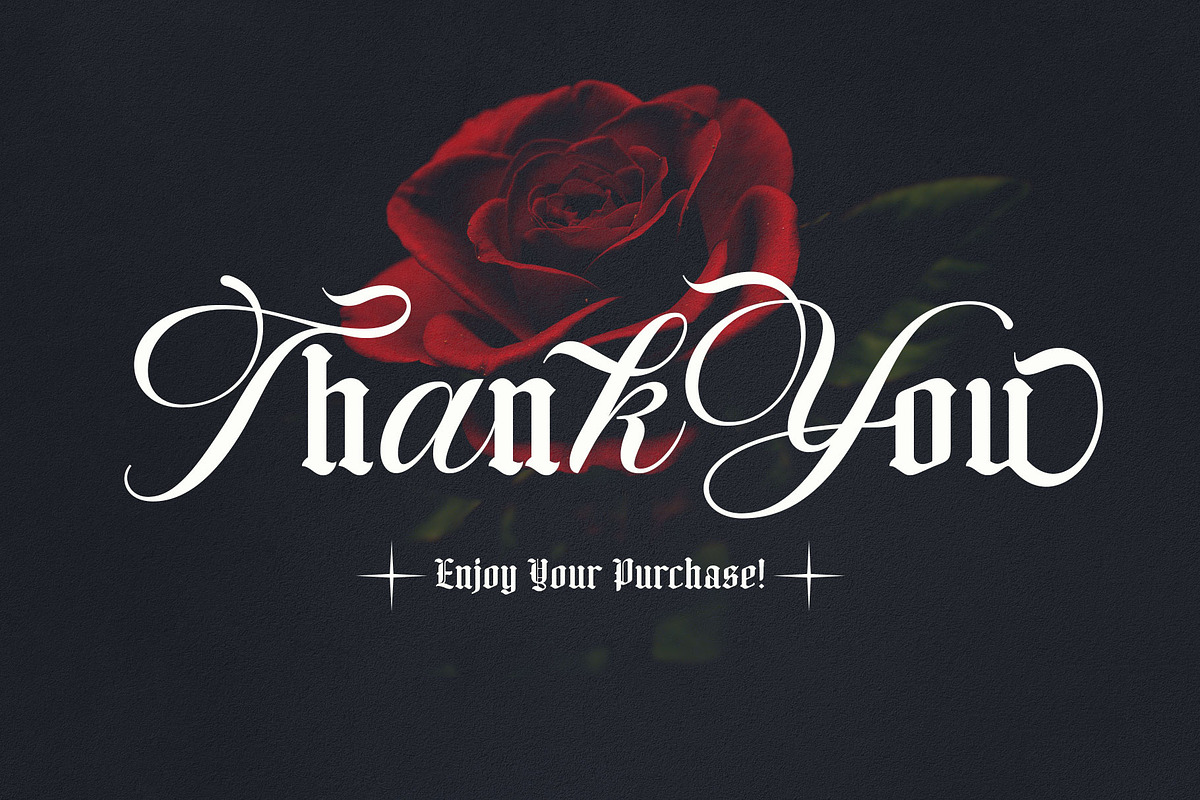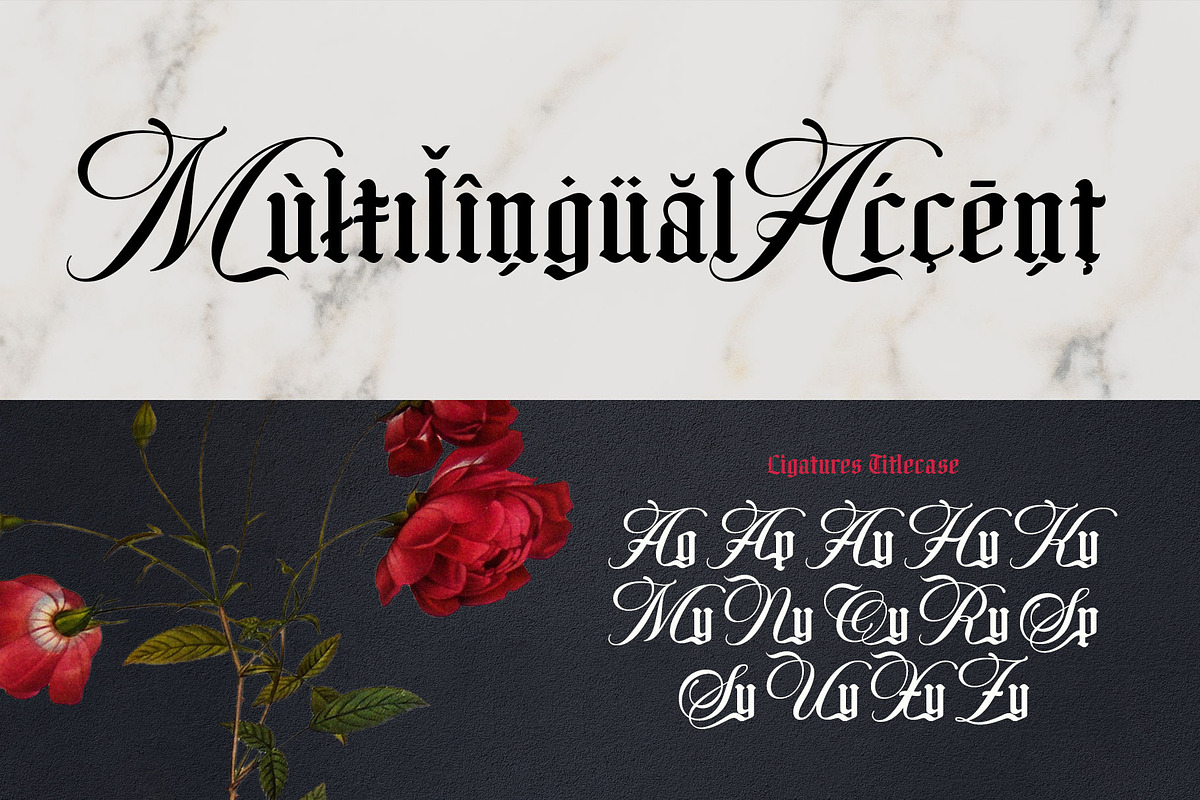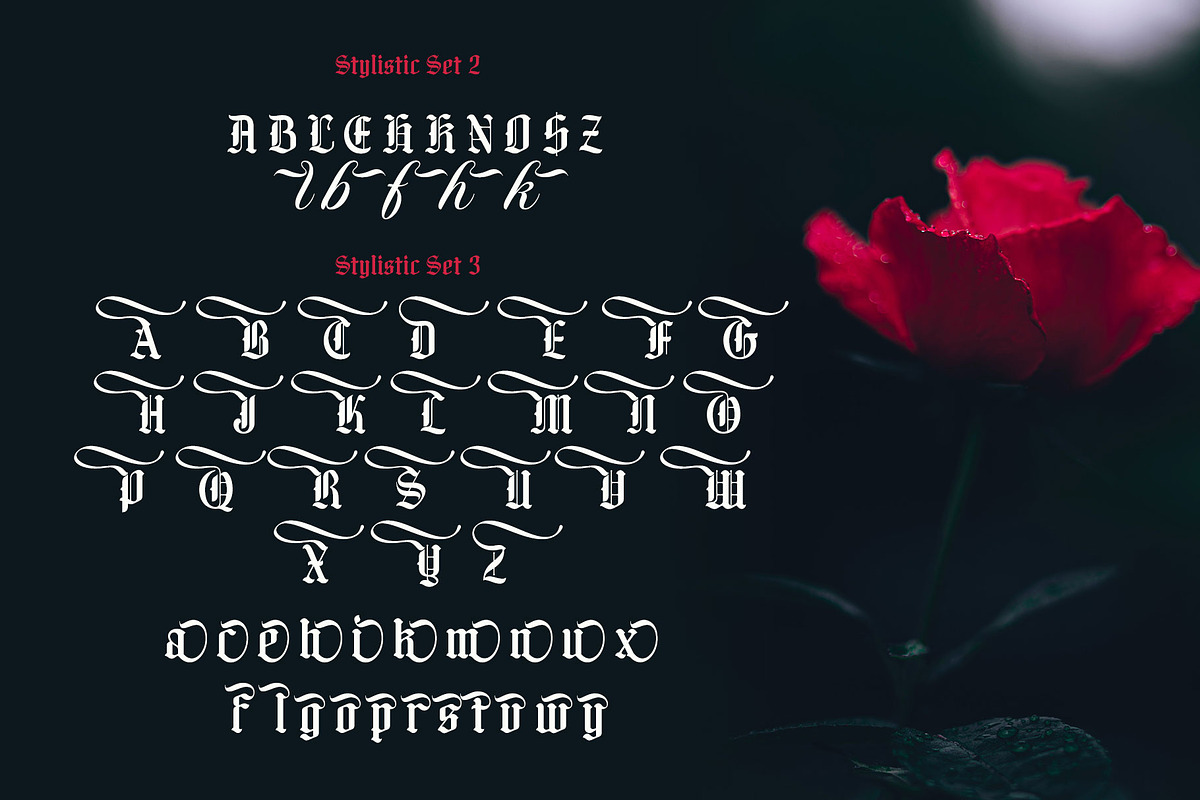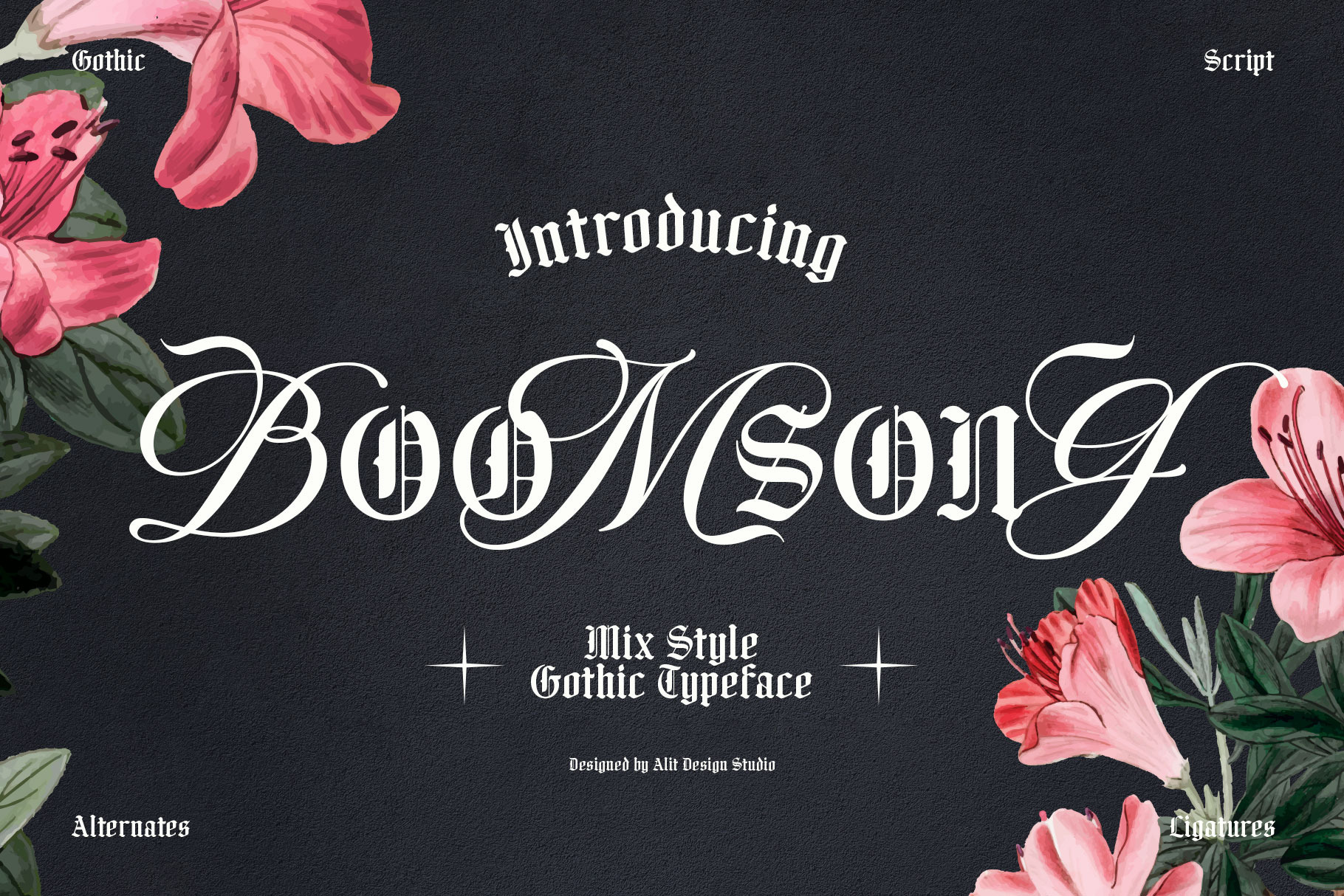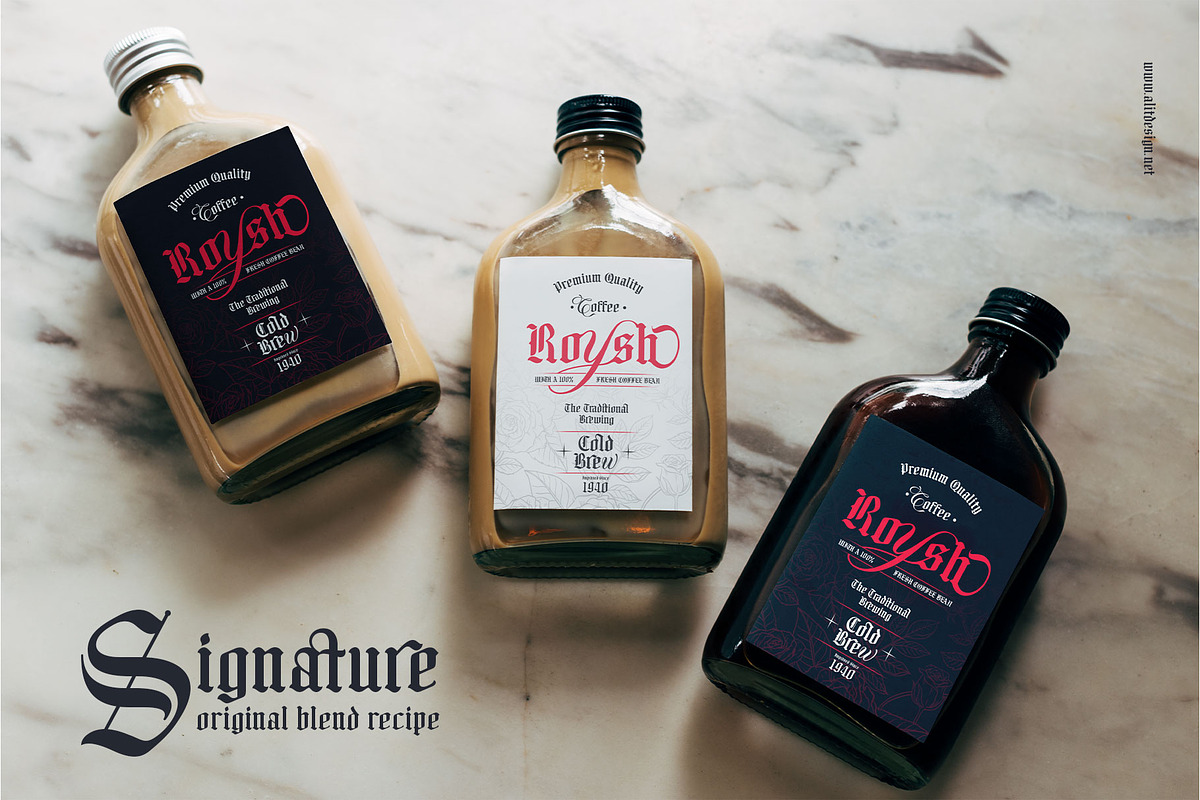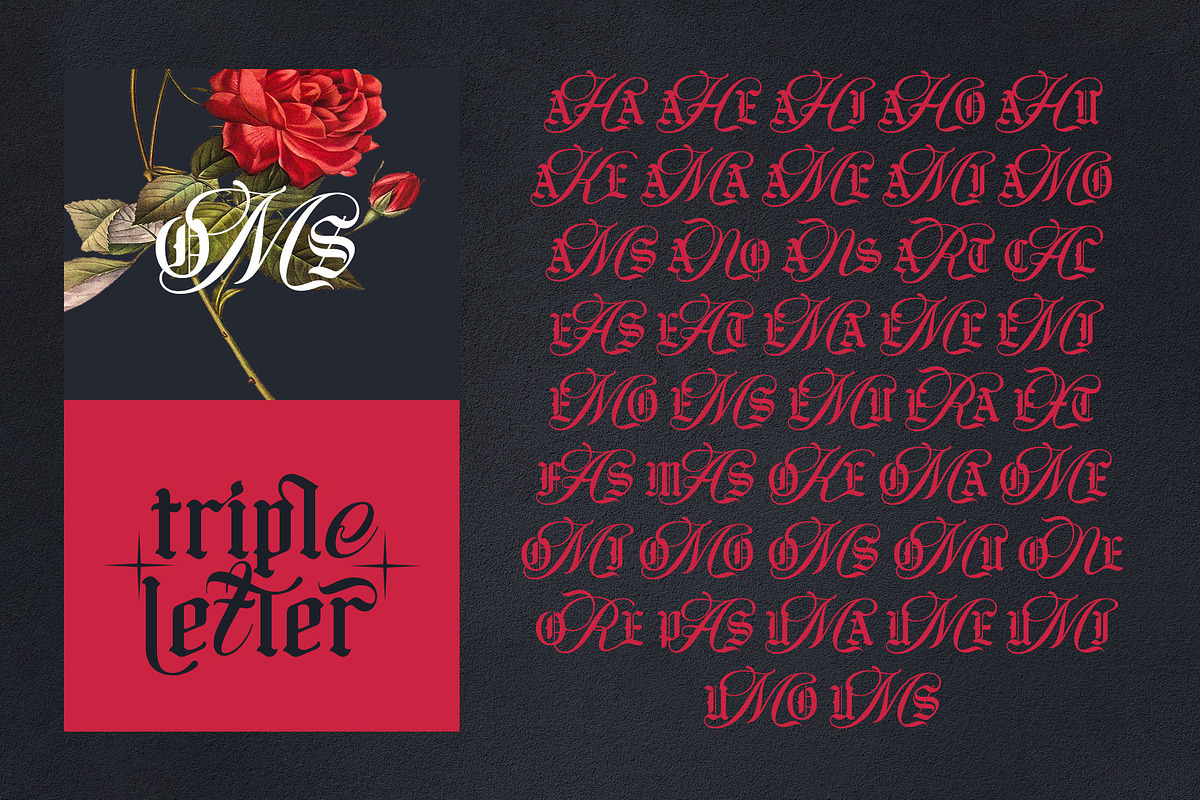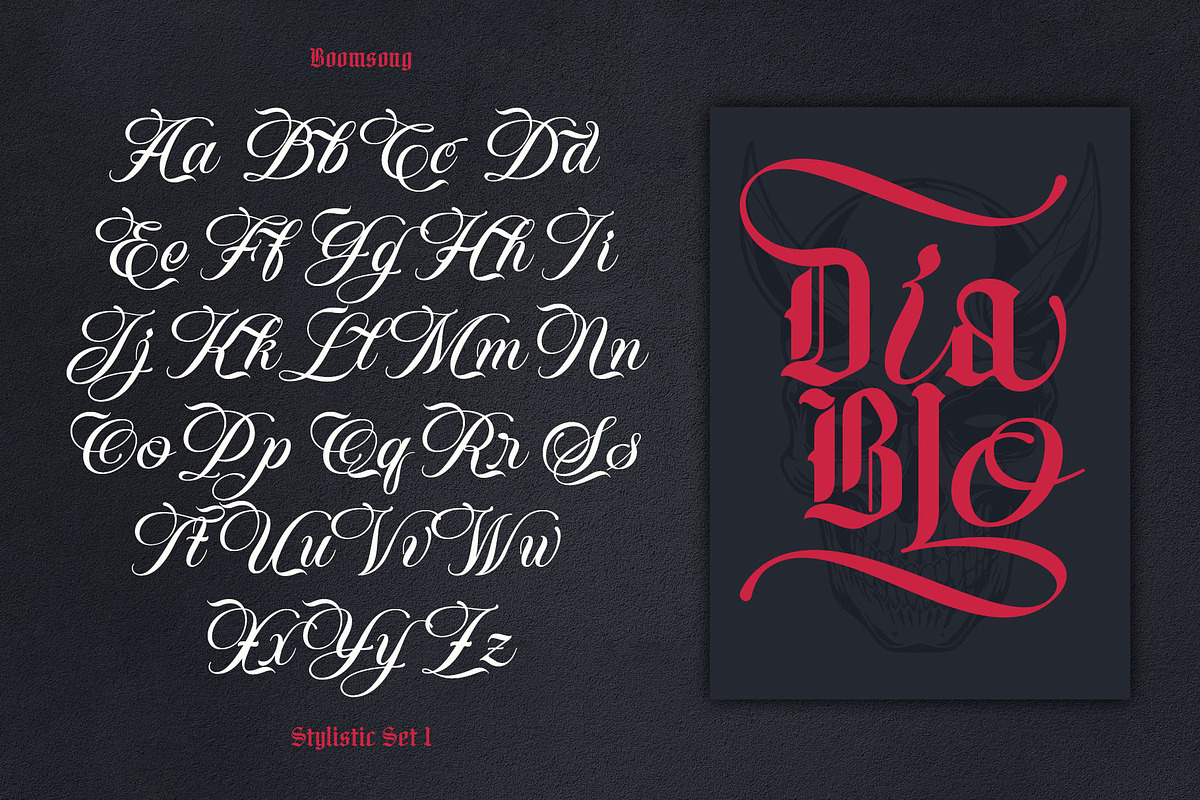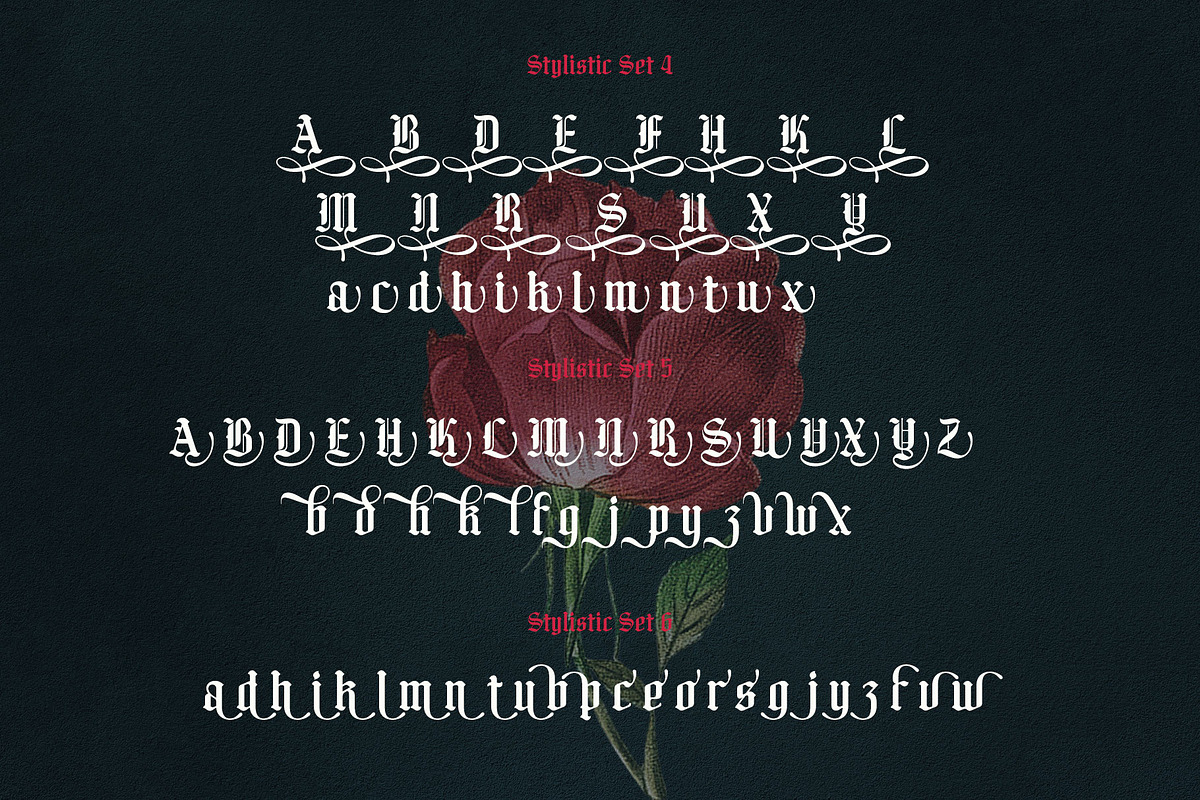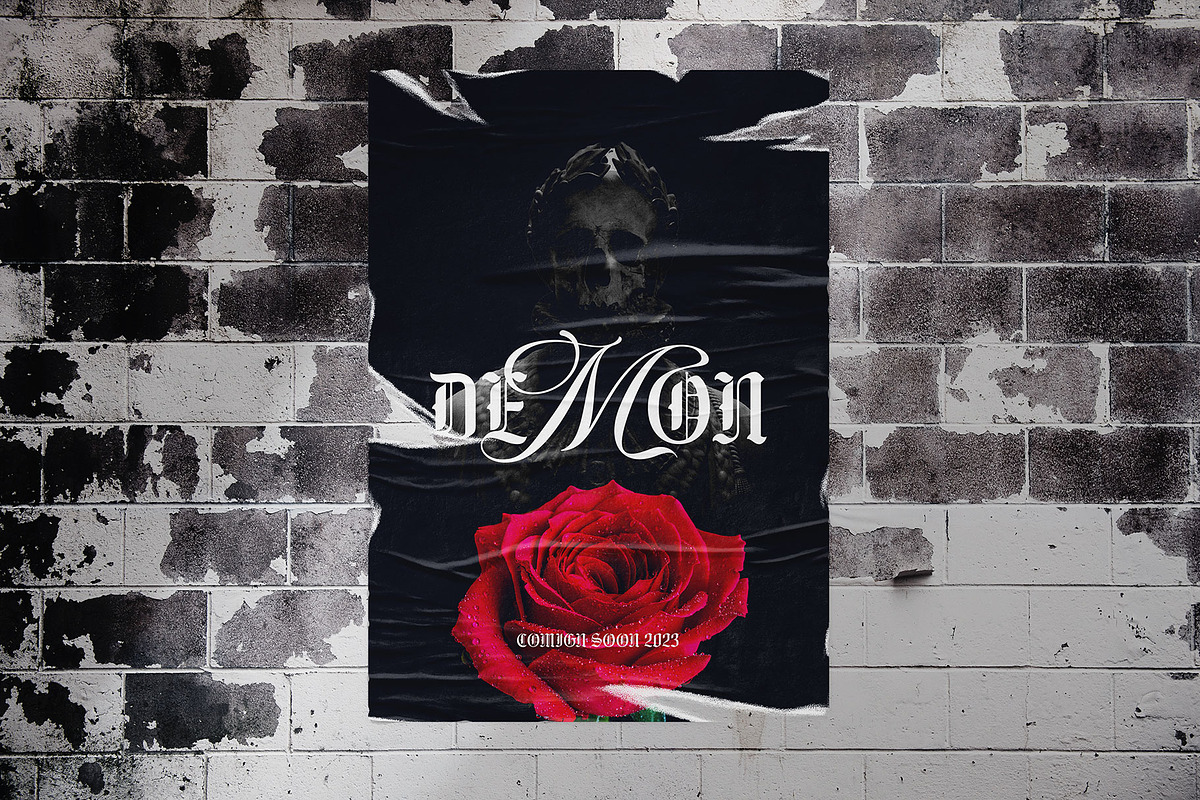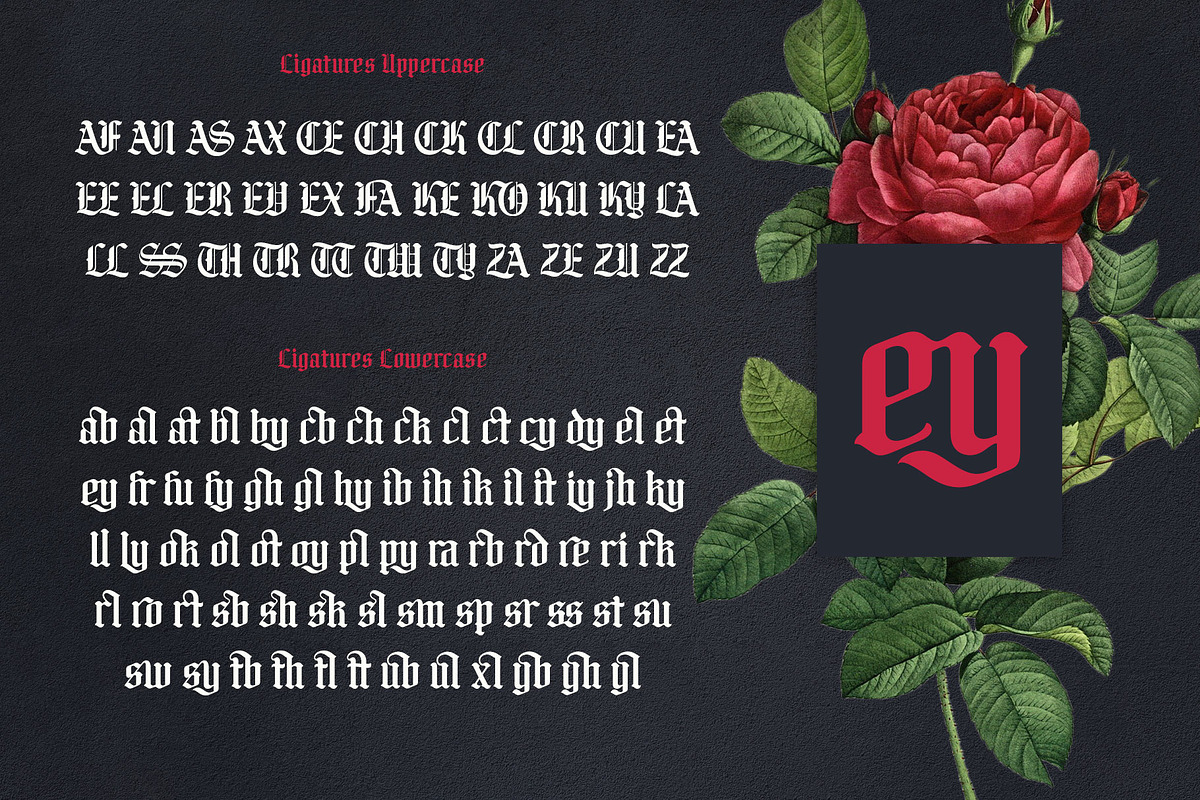
Boomsong Typeface
BOOMSONG is a stunning font that combines the beauty of blackletter and the elegance of script styles. It features a unique mix of these two styles, creating a perfect balance between boldness and refinement. The font includes 858 glyphs, offering a wide range of options for all your design needs.
With its unique alternates and ligatures, BOOMSONG allows you to create custom lettering that stands out and captures the eye. It supports PUA encoding, ensuring that you can access all glyphs and symbols, even in non-standard software.
BOOMSONG is perfect for projects that require a touch of beauty and sophistication. Its concept of "beauty in the dark" adds an intriguing element to your designs, making them stand out from the rest. With support for multiple languages, BOOMSONG is a versatile font that can be used for various purposes, from branding to invitations, book covers, and more.